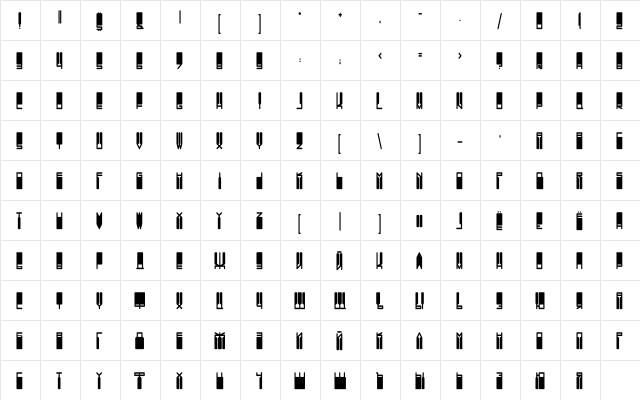
DS Vanish Medium
| Designer | Ray Larabie (eng.) & Nikolay Dubina (rus.) |
Design Context for DS Vanish Typeface
DS Vanish is a composed and adaptable typeface that performs quietly and consistently across a wide range of design contexts.